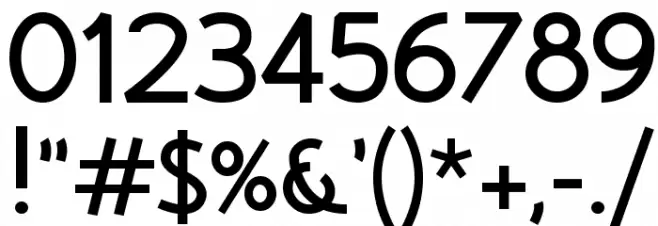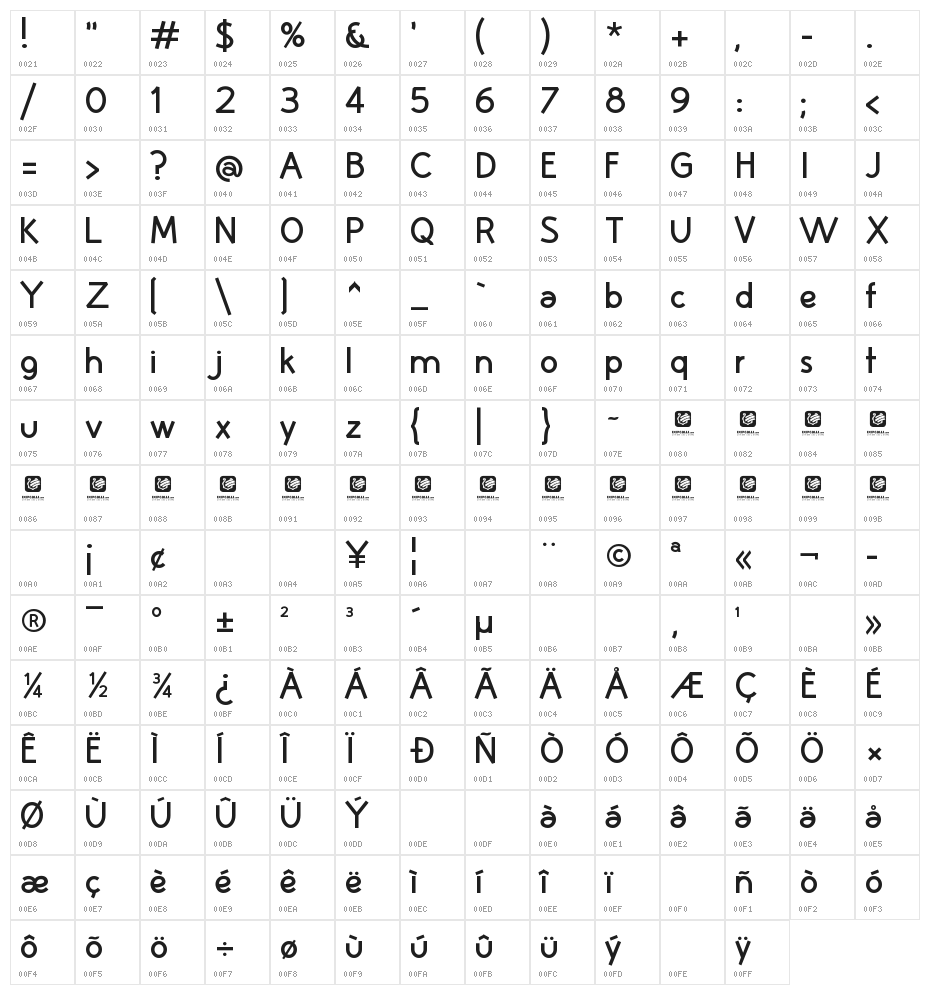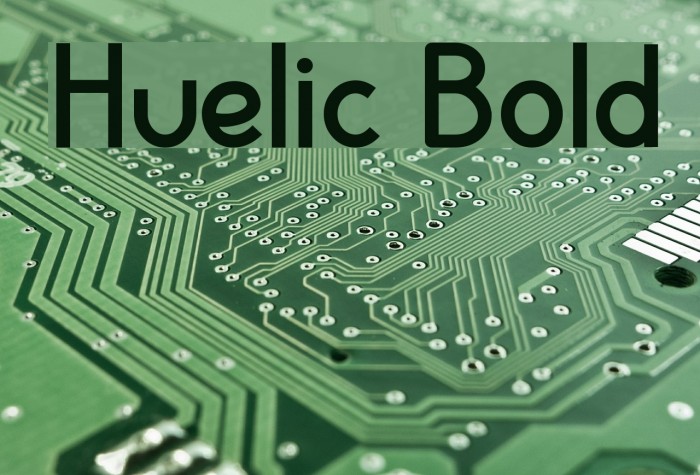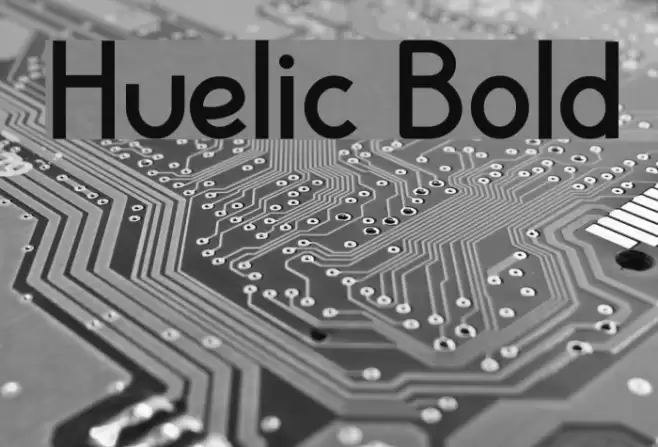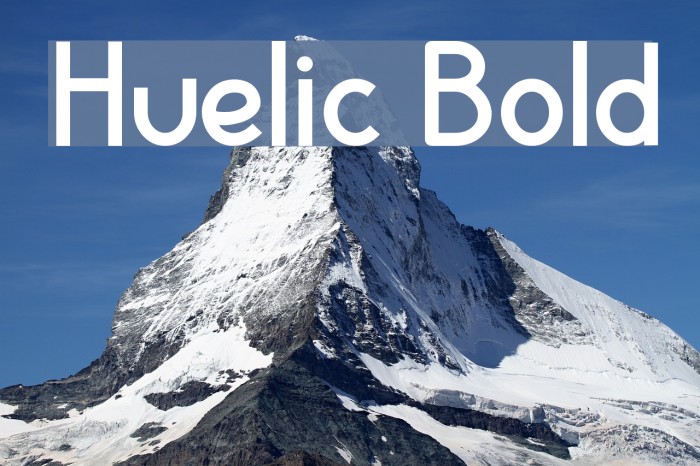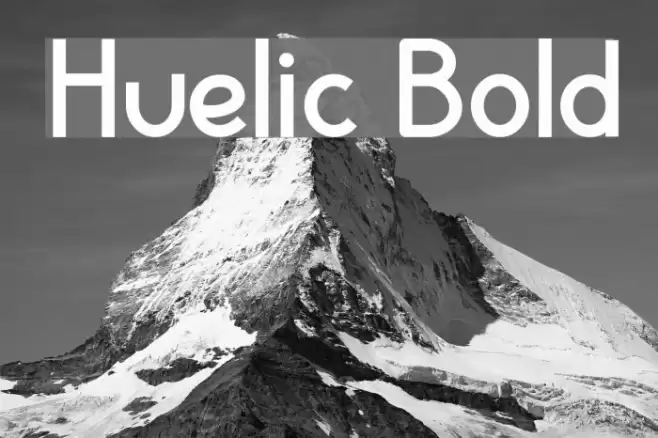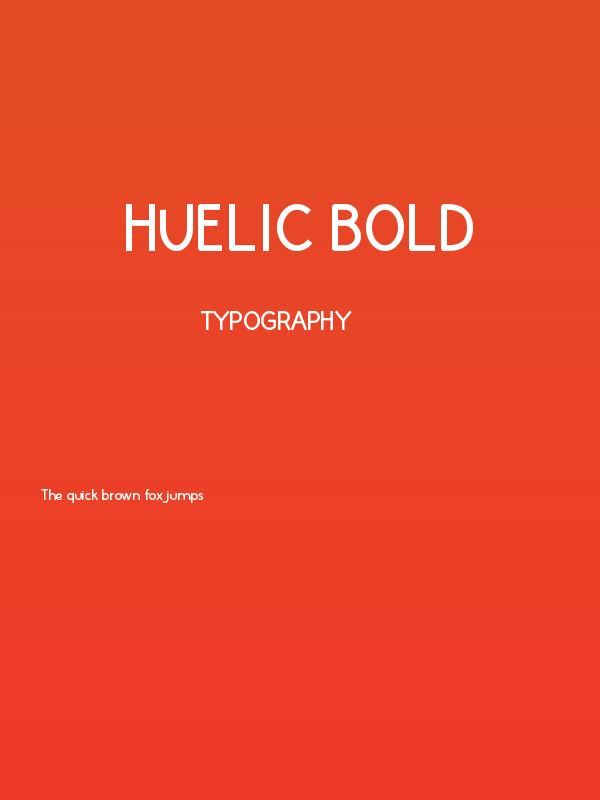
Huelic Bold Font
Huelic Bold Description
This font exhibits a clean and modern sans-serif style with bold, uniform strokes that provide a strong visual impact. The characters are well-proportioned, with a consistent weight that enhances readability. The uppercase letters are slightly taller than the lowercase, maintaining a balanced appearance. The numerals are clear and distinct, matching the overall boldness of the alphabet. Special characters are designed with the same attention to detail, ensuring they integrate seamlessly with the rest of the font. The overall design is sleek and contemporary, making it suitable for a variety of digital and print applications.
| Use Case | Headlines, Logos, Digital media |
| Proposed Projects | Ideal for branding, advertising, headlines, and digital media where a modern and bold statement is needed. |